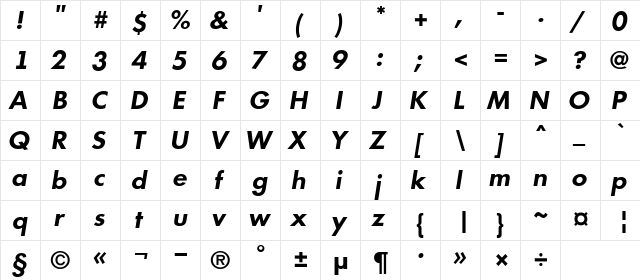
a_FuturicaBs BoldItalic
Design Context for a_FuturicaBs Typeface
a_FuturicaBs channels digital-age aesthetics through its sharp, structured letterforms — ideal for brands that want to signal innovation. The slanted form adds forward momentum and visual energy. The heavy weight commands attention and anchors typographic hierarchies.